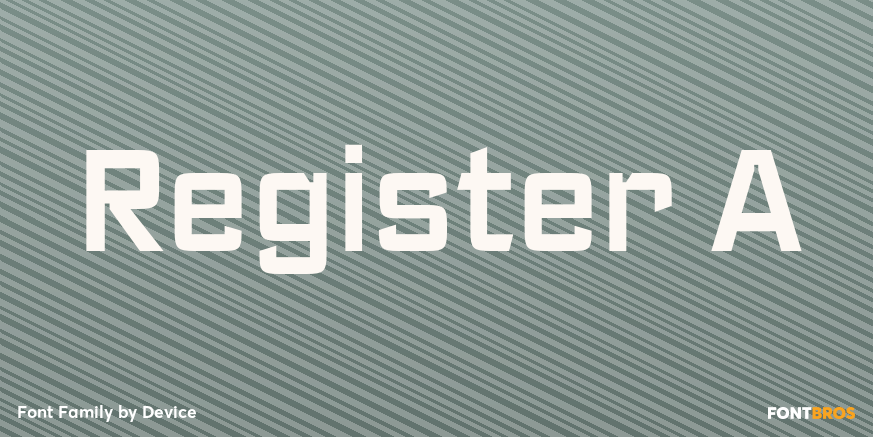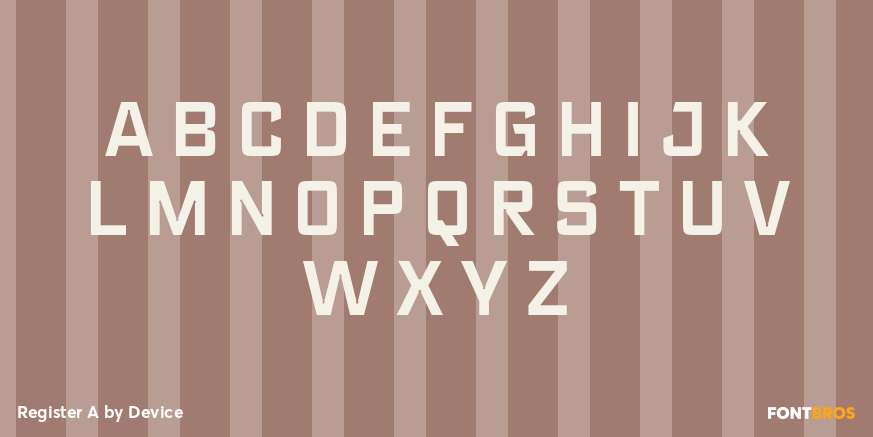
Register A
Font Family by Device
Register A is a futuristic sans serif family from Device with a sharp, forward-looking presence. Its clean geometry and angled italics give it a technical, contemporary feel that reads as confident and distinctly modern.
This family includes 4 styles: Light, Light Italic, Demi Bold, and Demi Bold Italic. That range makes it easy to move from sleek, minimal headlines to bolder display treatments while keeping a consistent voice across a project.
Well suited to posters, branding, signage, and other display-driven work, it brings a crisp sci-fi edge without losing clarity. If you want a sans serif that feels streamlined, digital, and visually assertive, this family offers a focused set of styles for high-impact typography.